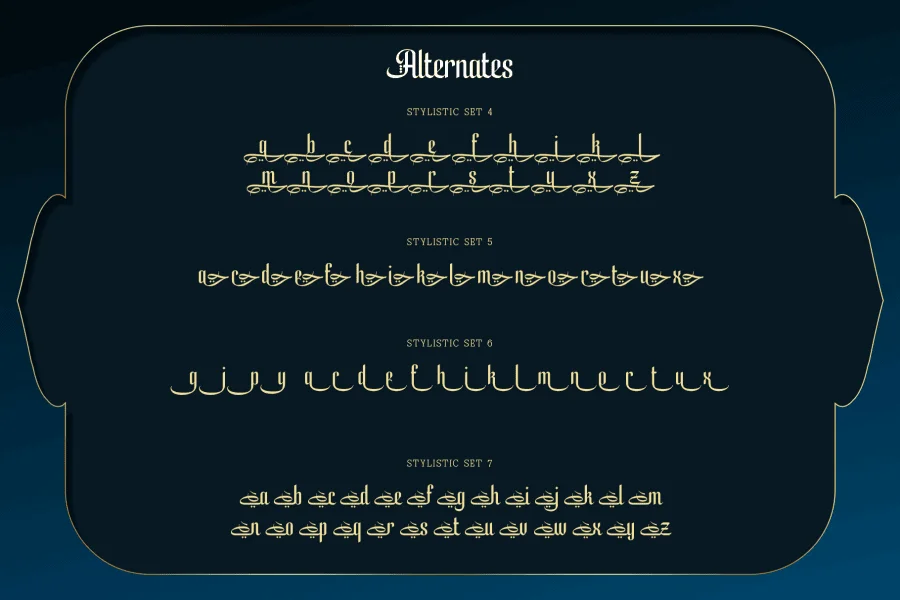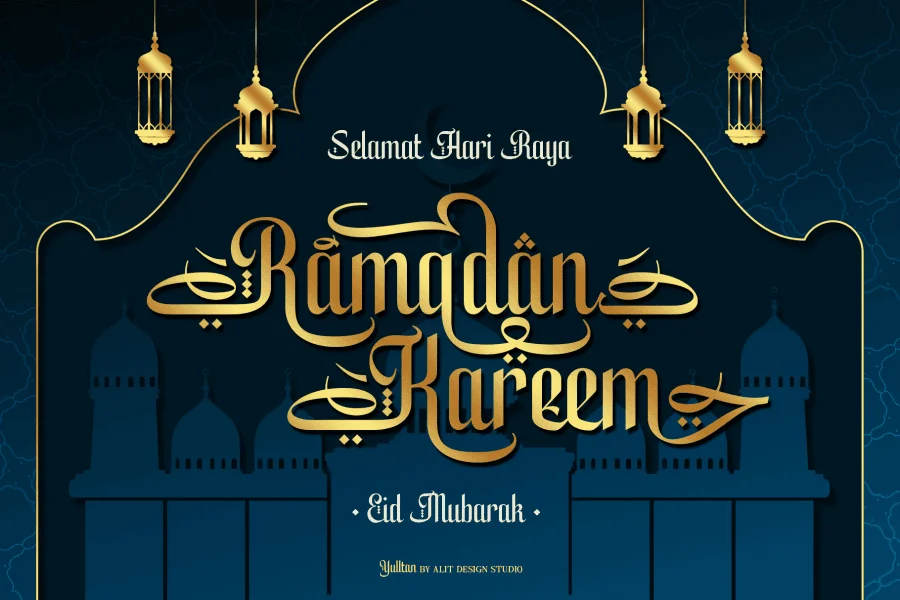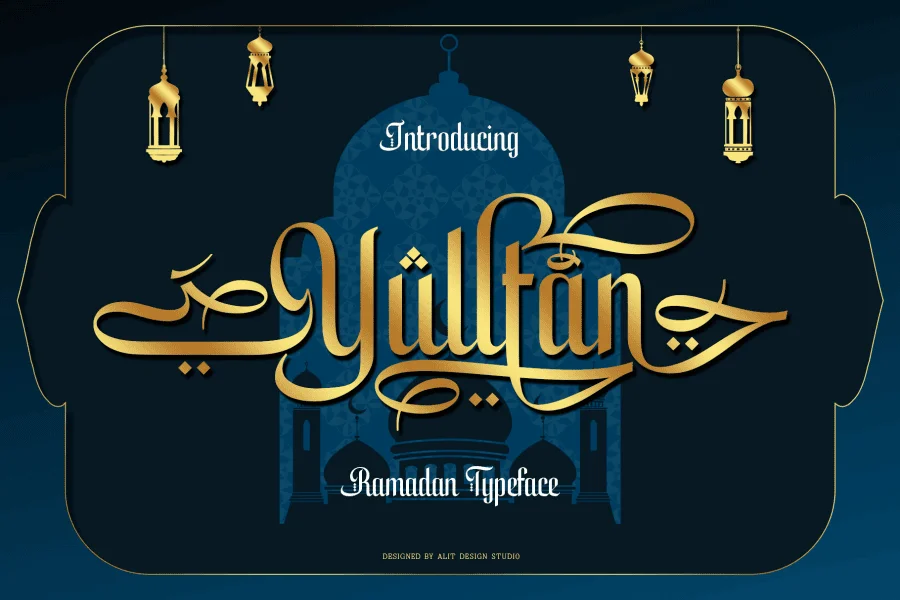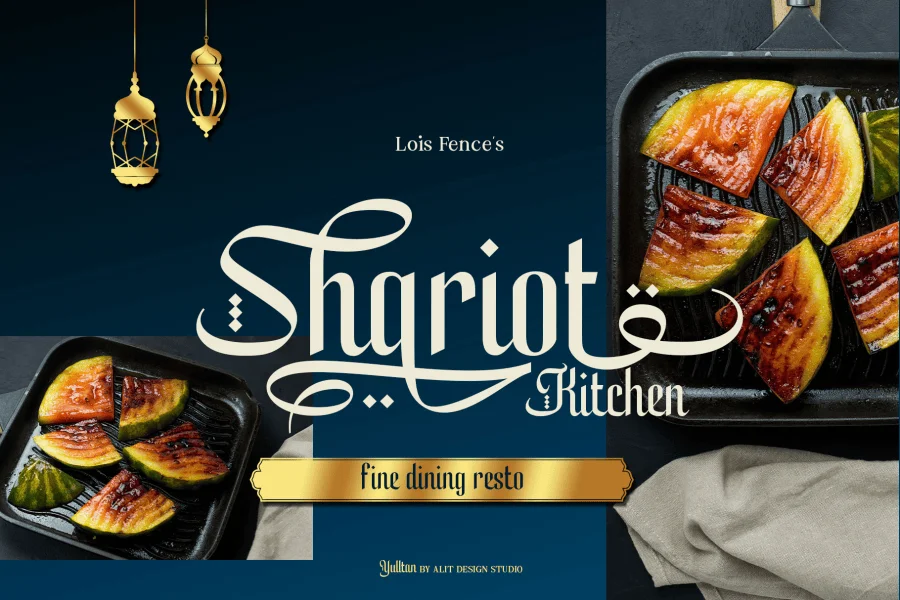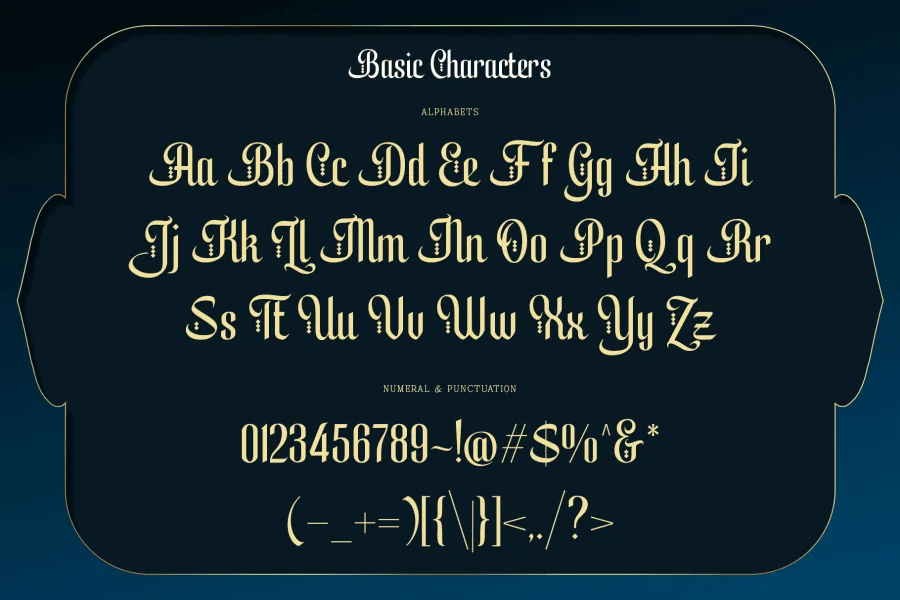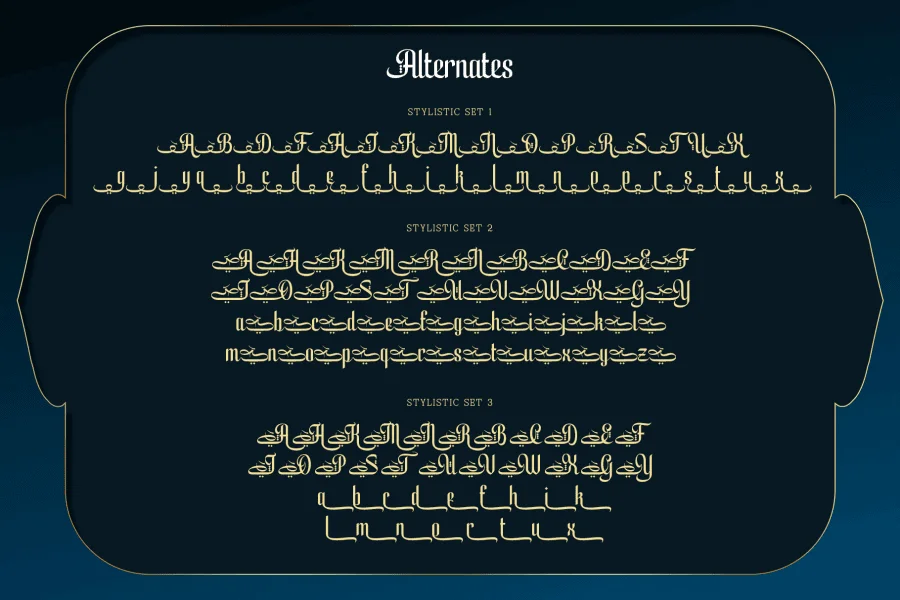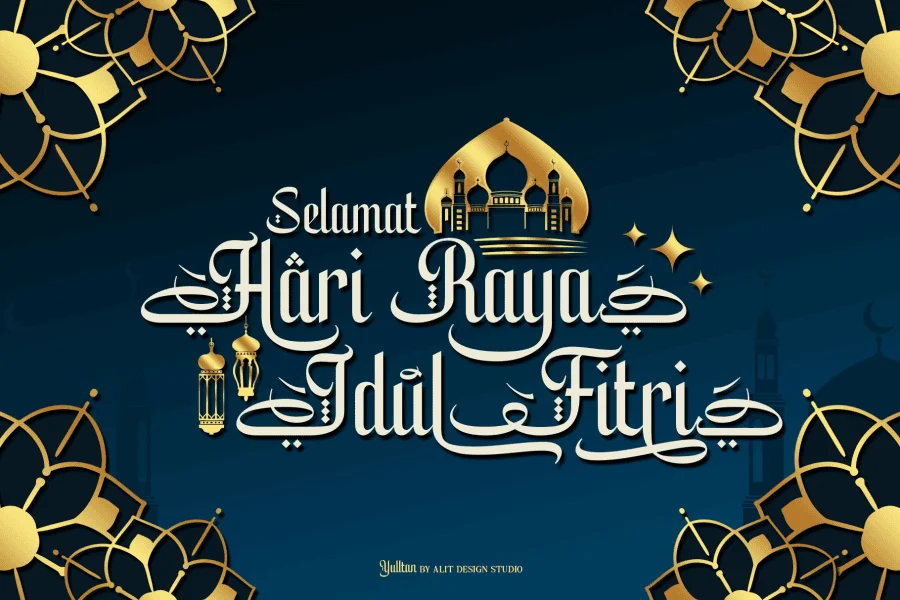
Yulltan Ramadan Typeface is a beautifully crafted font product with a unique style that is perfect for religious and Islamic designs. This font is specifically designed to cater to the design needs of the Ramadan promotion, and it has a distinctively Islamic and religious vibe that is sure to impress your audience.